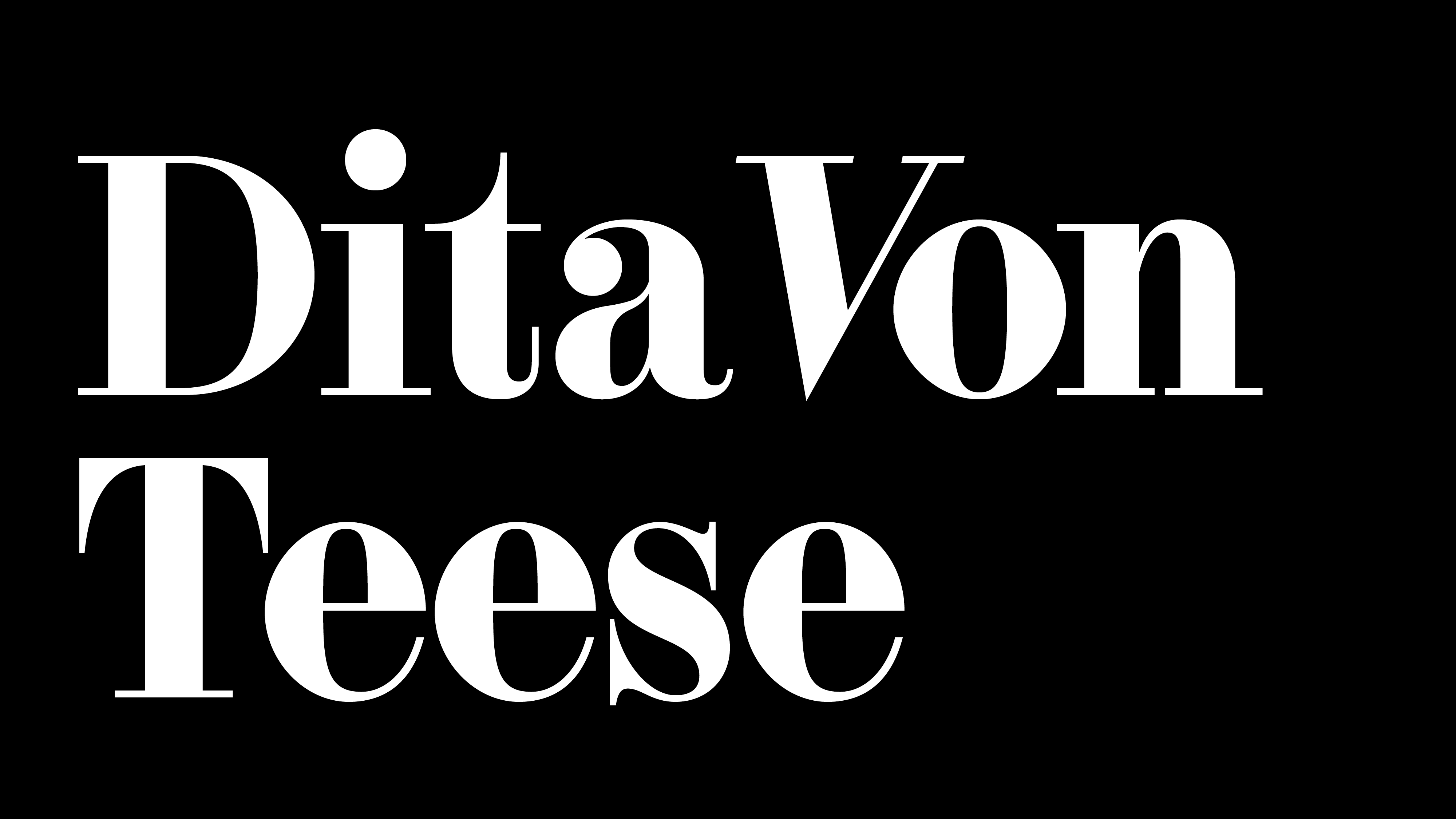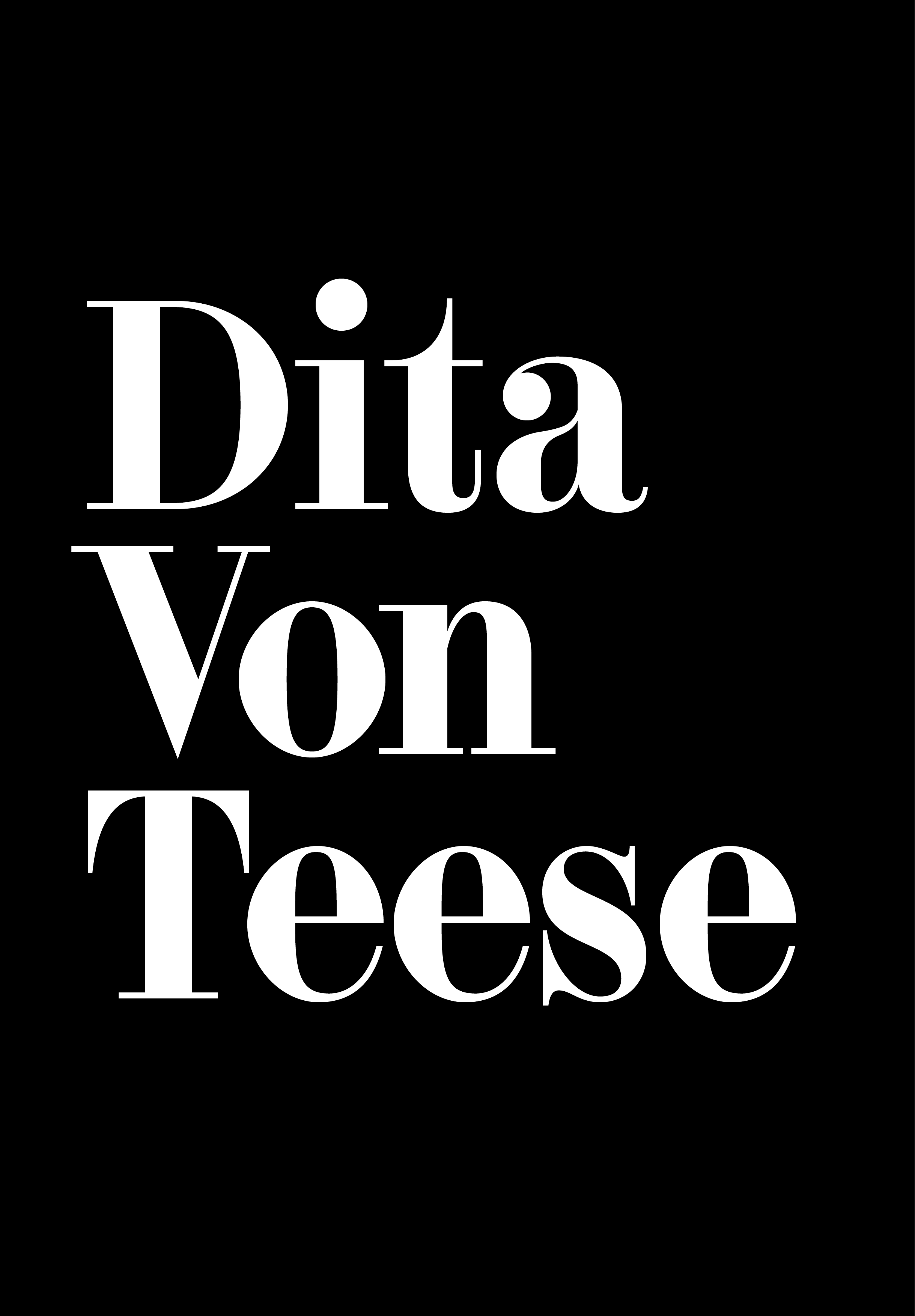
F37 Bella Text®
John Pistilli worked for the agency Sudler & Hennessey.
Pistilli (1925—2003) was head of lettering design at the advertising agency. Frances Elfenbein met him first in 1957 at Sudler & Hennessey. She writes: “John was the most skilled and creative letterer I had the privilege of knowing. He did the finished lettering for most of the designs Herb Lubalin created [at S&H], always adding refinements to the very rough sketches he received from Herb.” In 1964, Herb Lubalin made a typeface with him called Pistilli Roman.